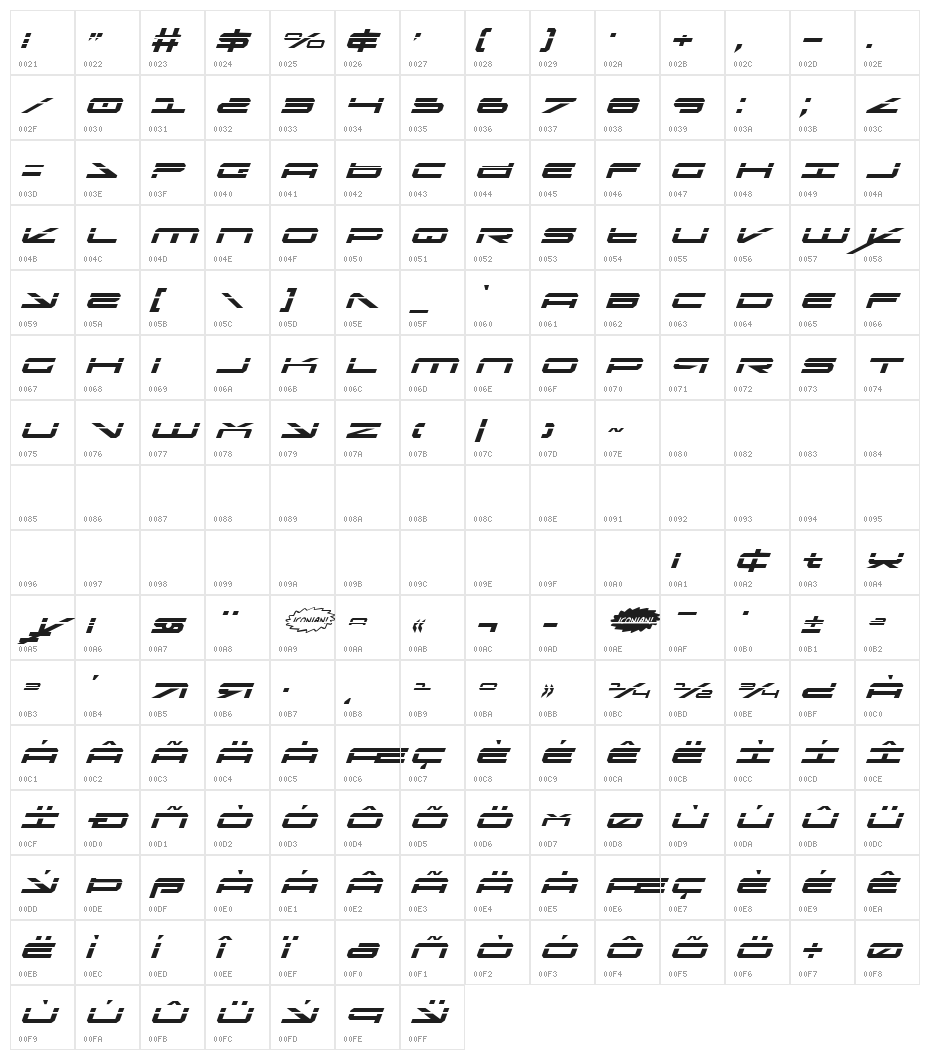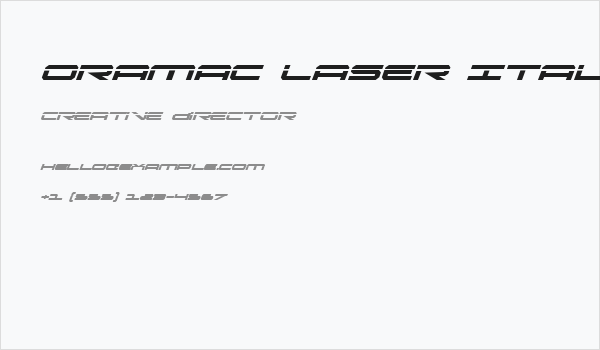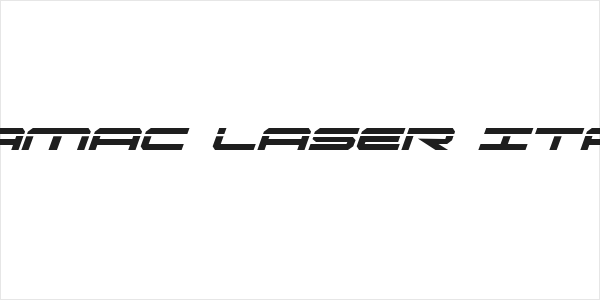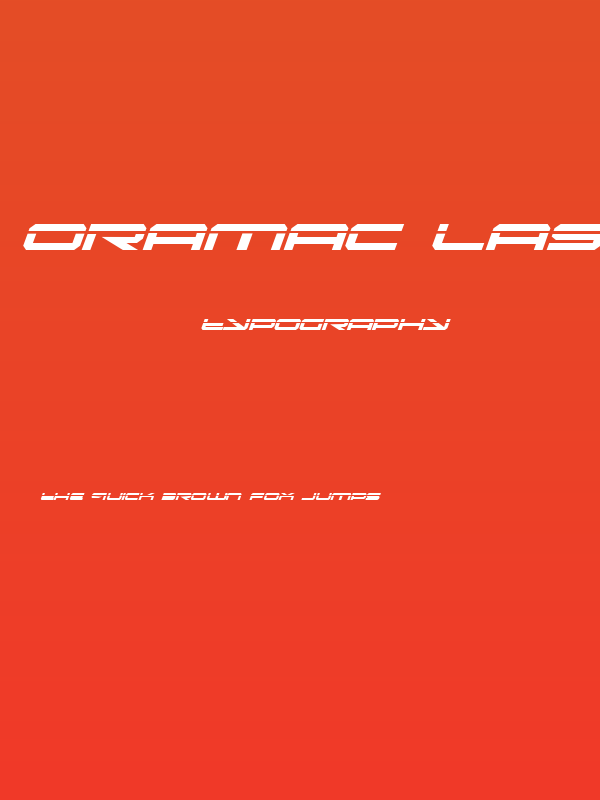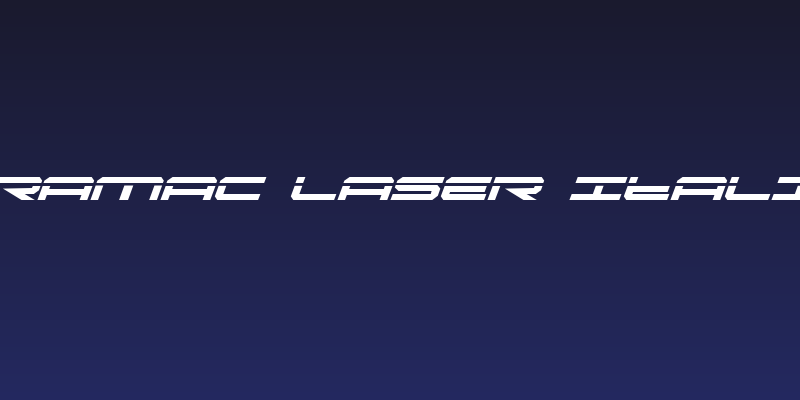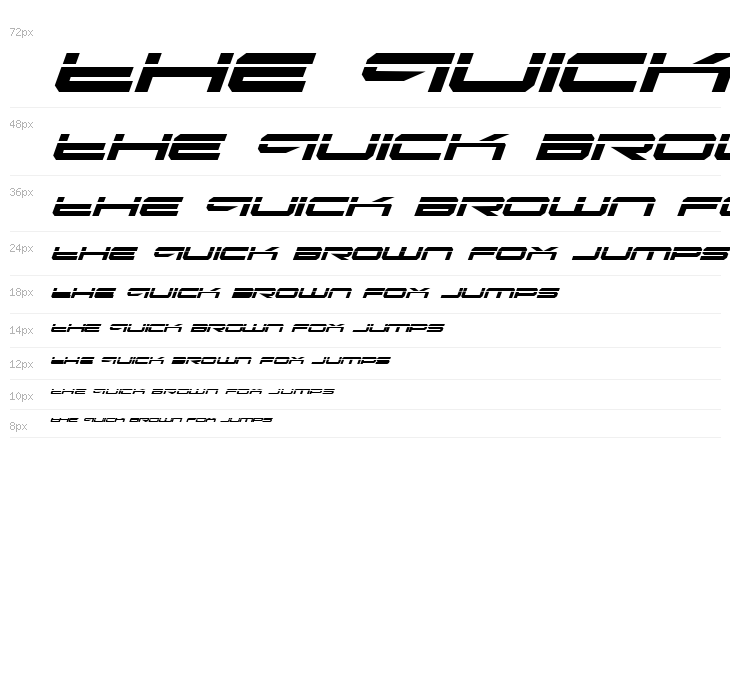
Oramac Laser Italic Font
Oramac Laser Italic Description
This font features a futuristic and sleek design, characterized by its angular and geometric letterforms. The italicized style adds a dynamic and forward-leaning appearance, enhancing its modern aesthetic. The uppercase and lowercase letters maintain a consistent structure, with sharp edges and a streamlined look. The numerals and special characters follow the same design principles, ensuring uniformity across all glyphs. This font's unique style makes it stand out, suitable for projects that require a contemporary and cutting-edge feel.
| Proposed Projects | Ideal for technology branding, sci-fi movie posters, video game titles, and modern logos. |